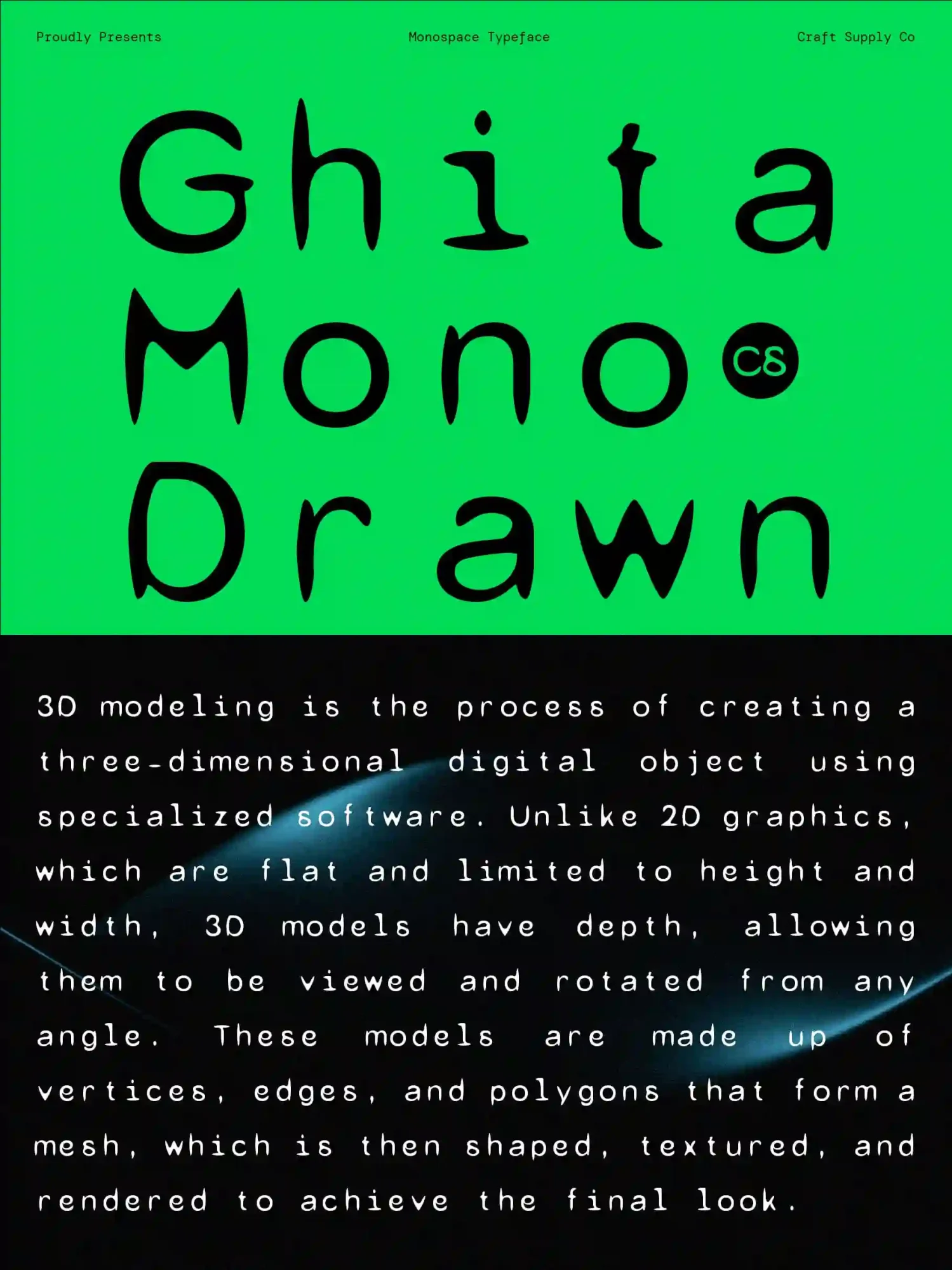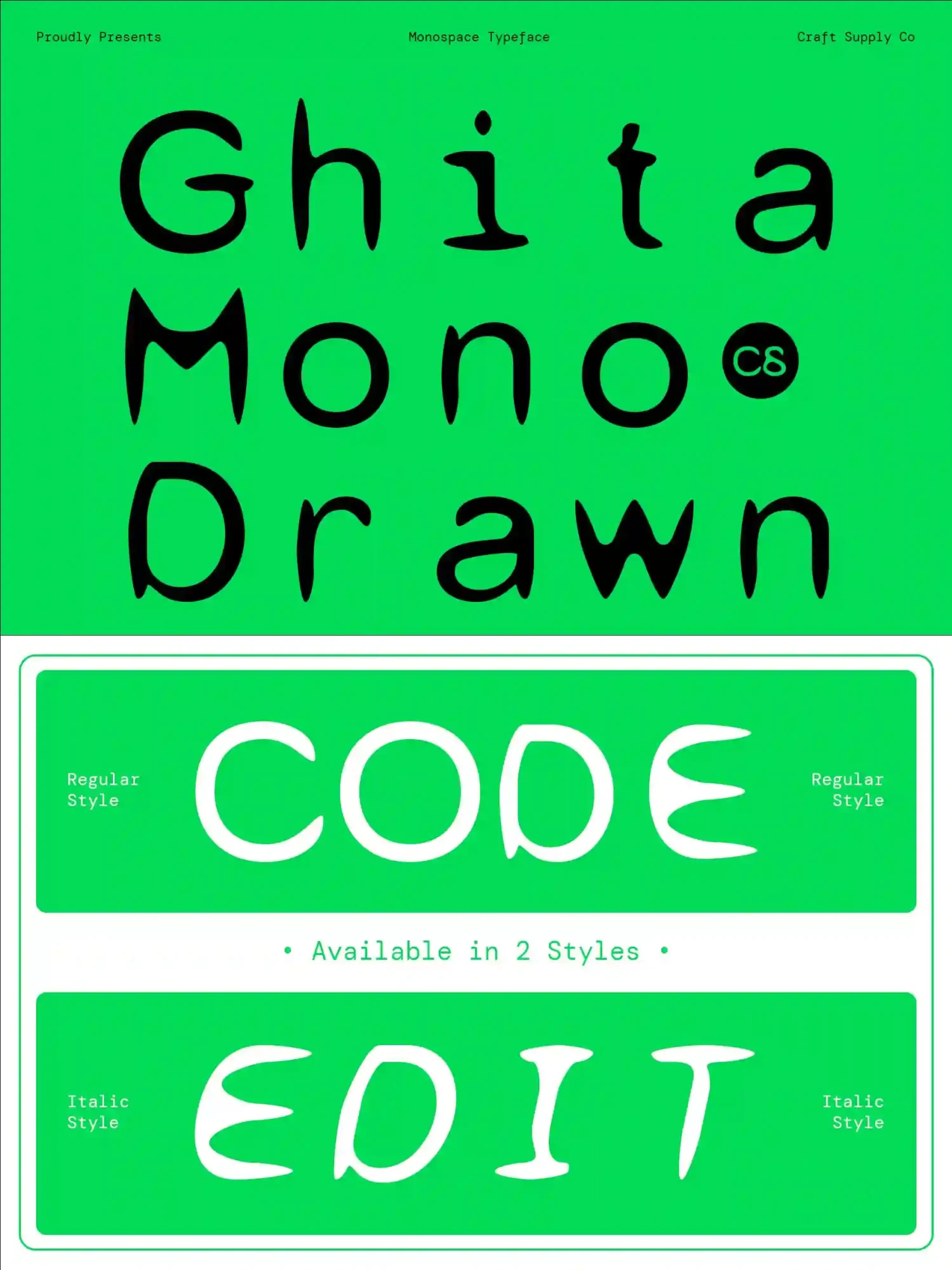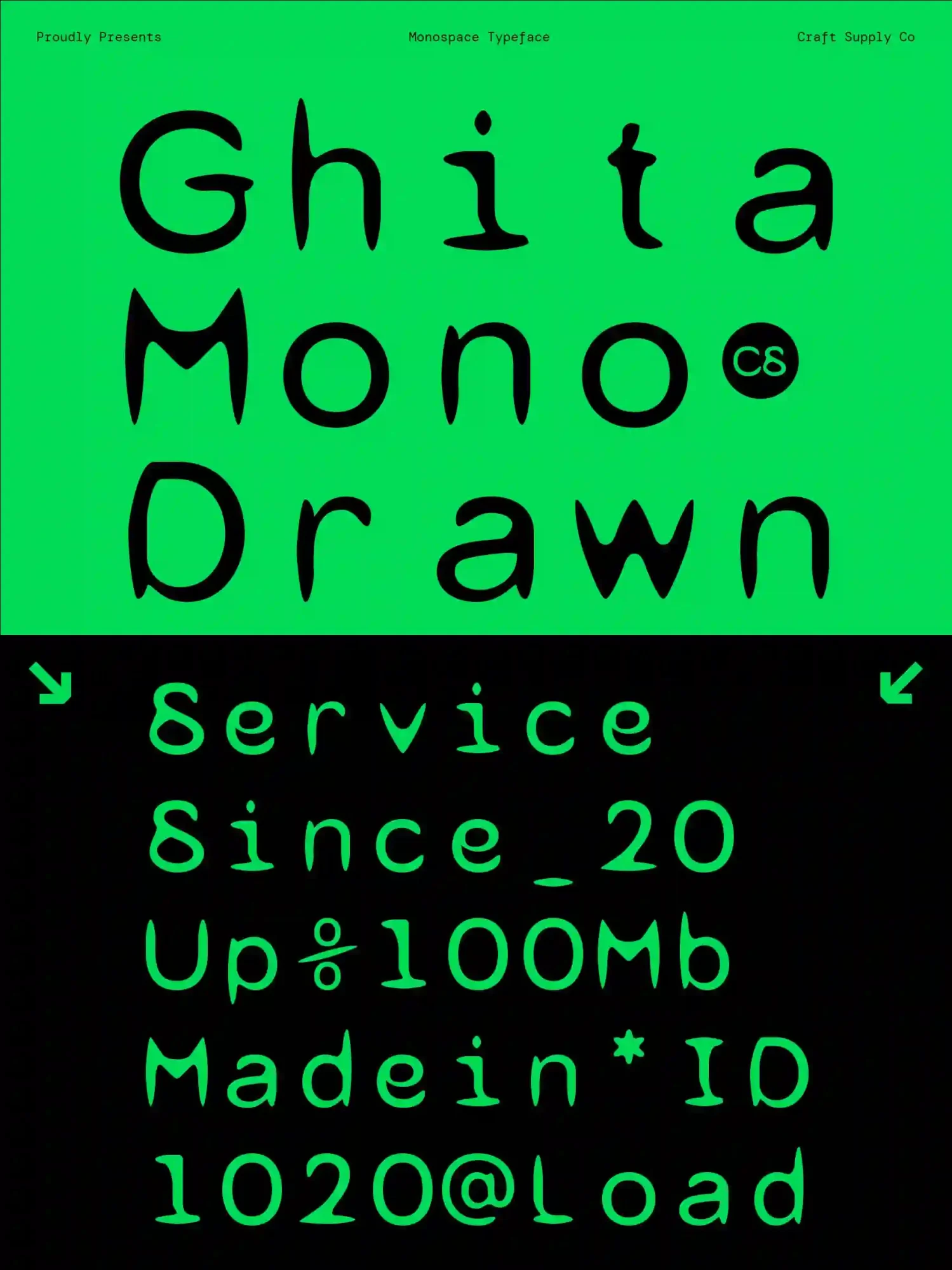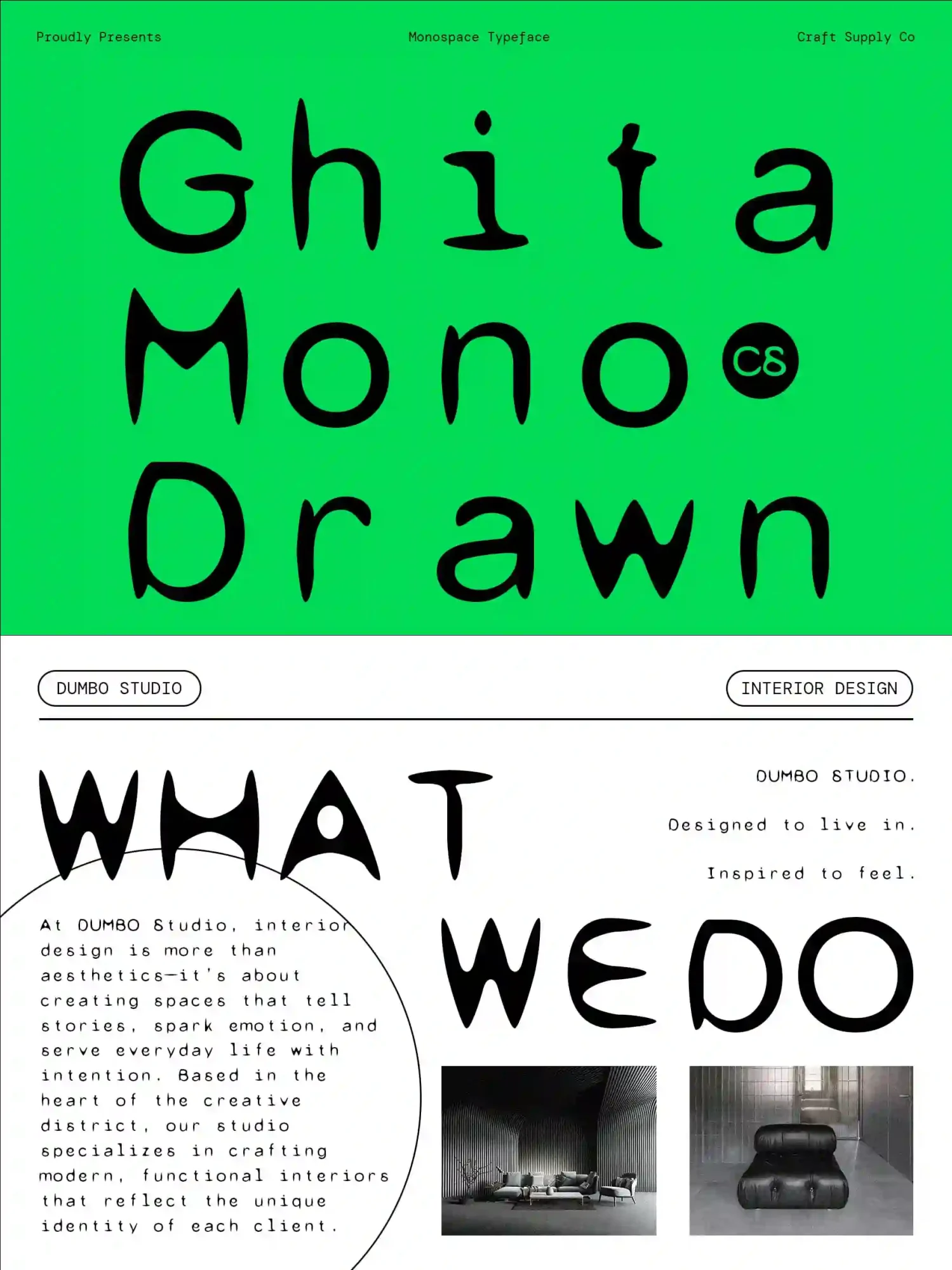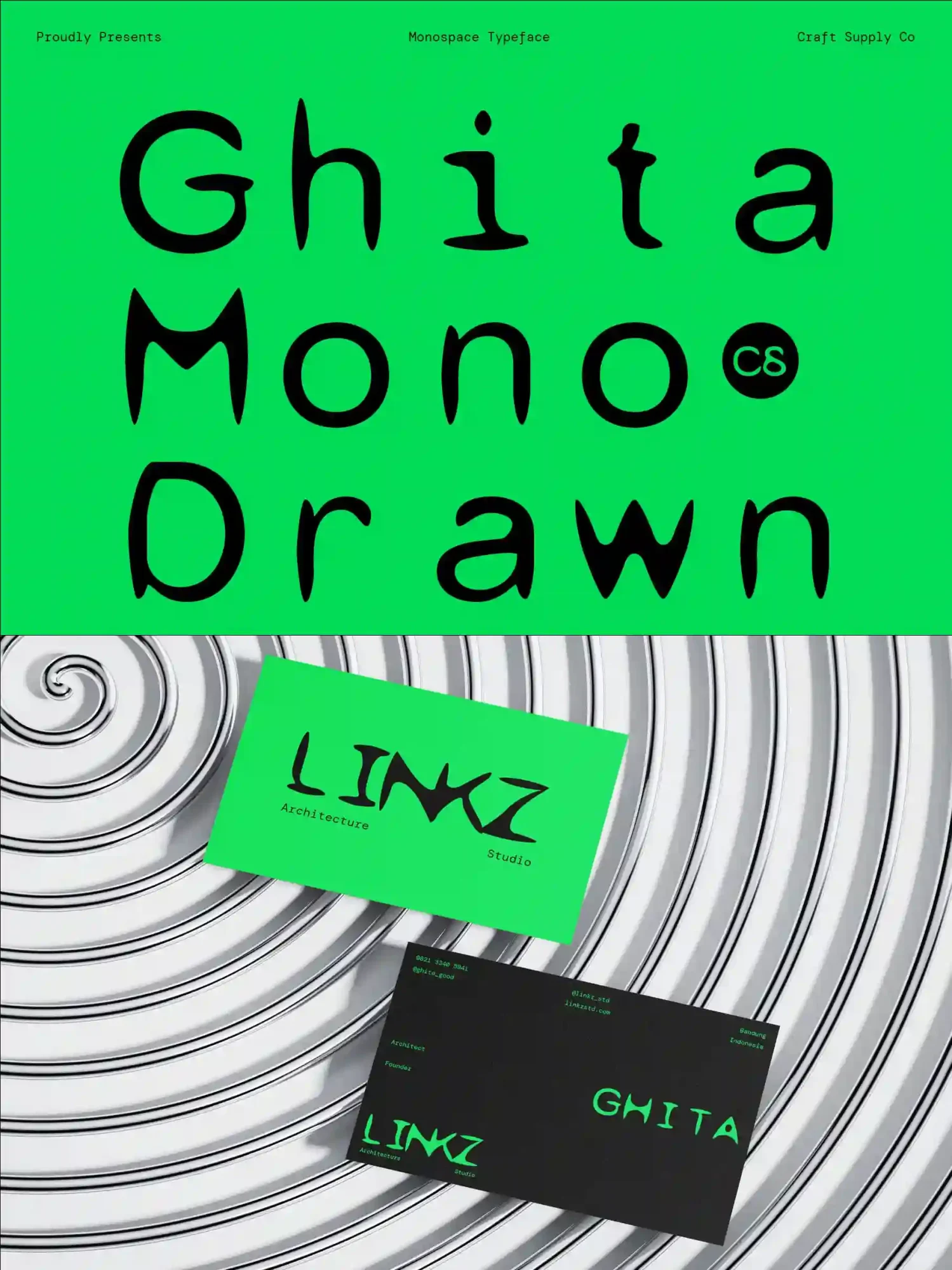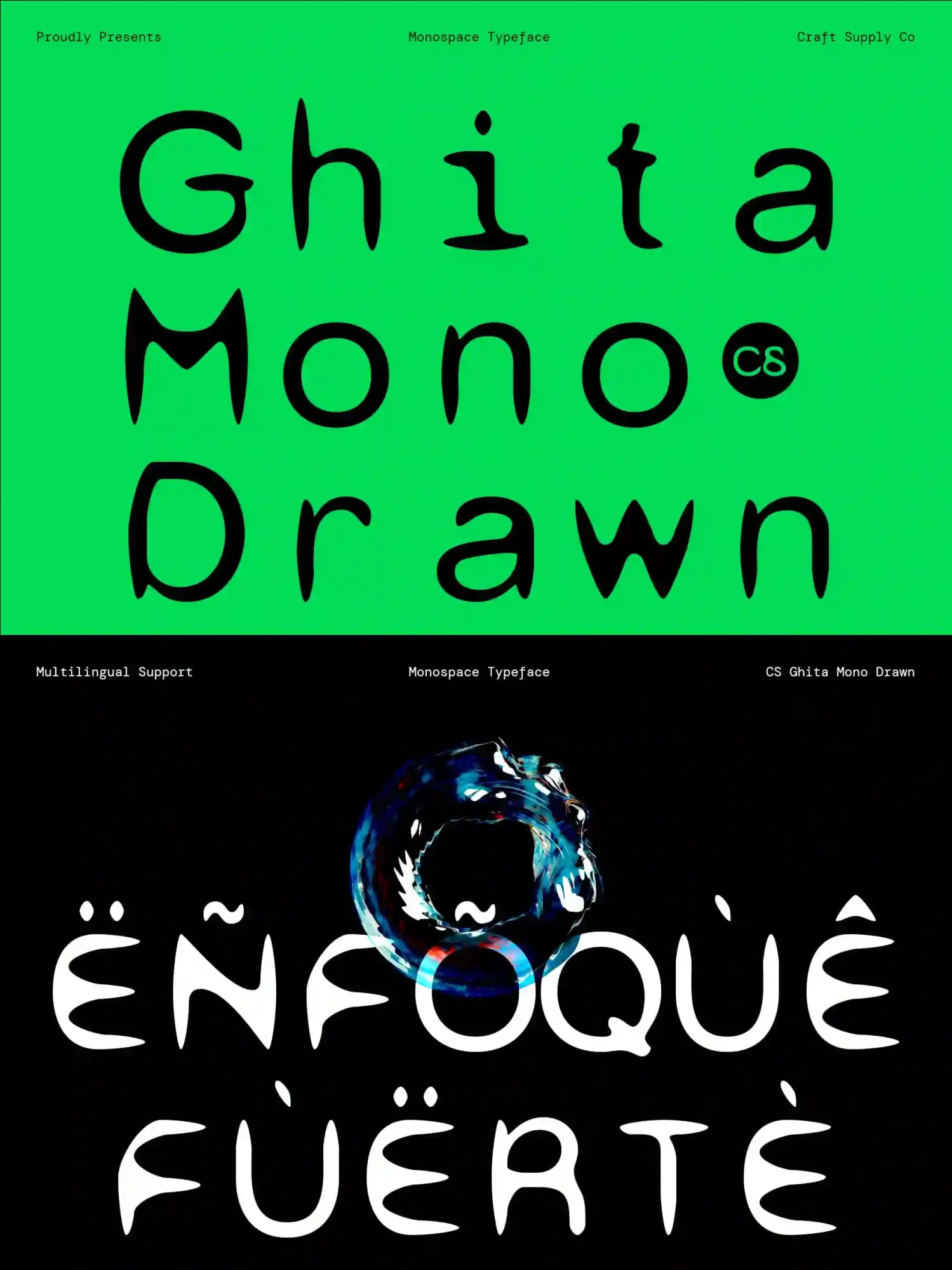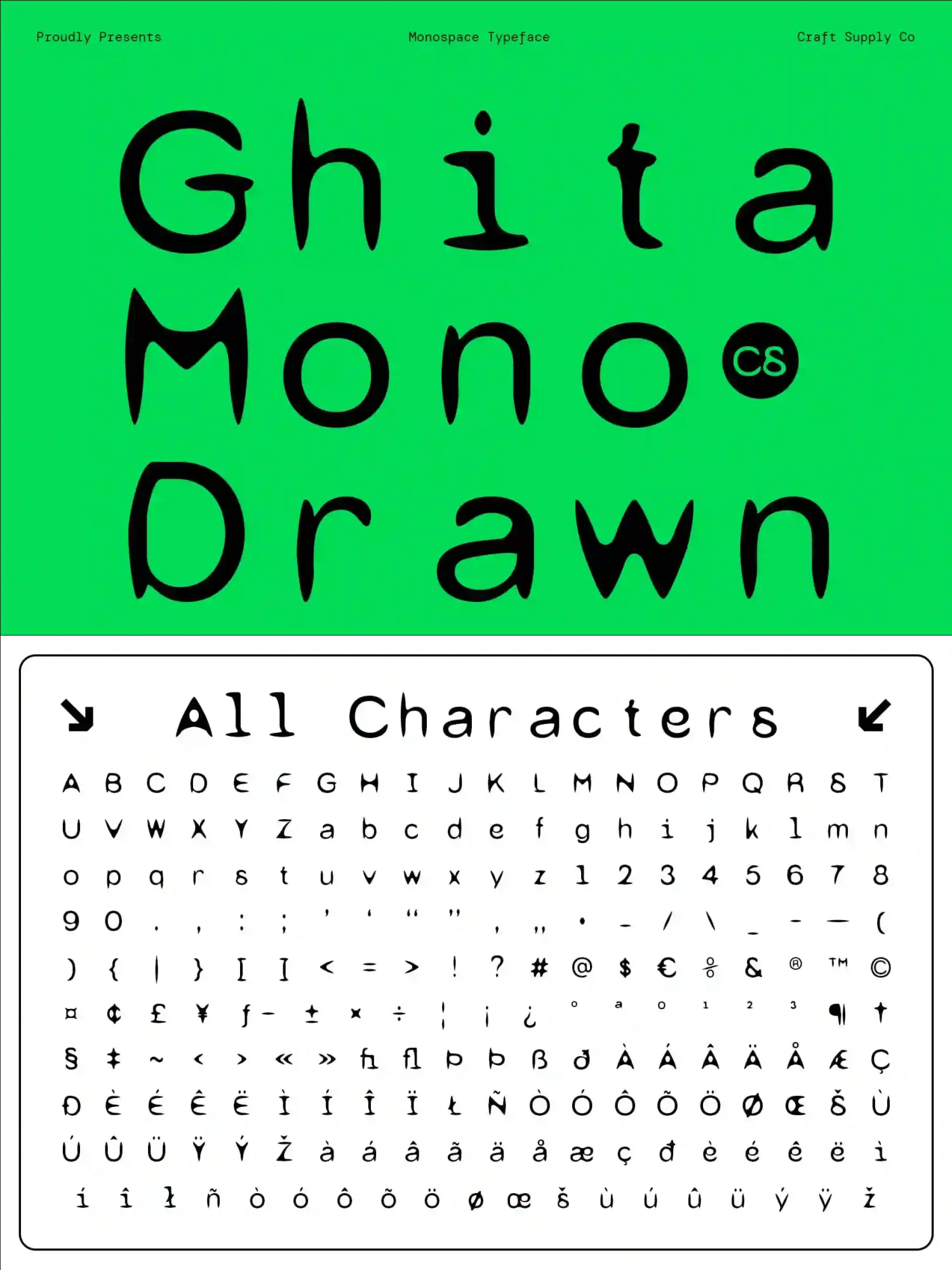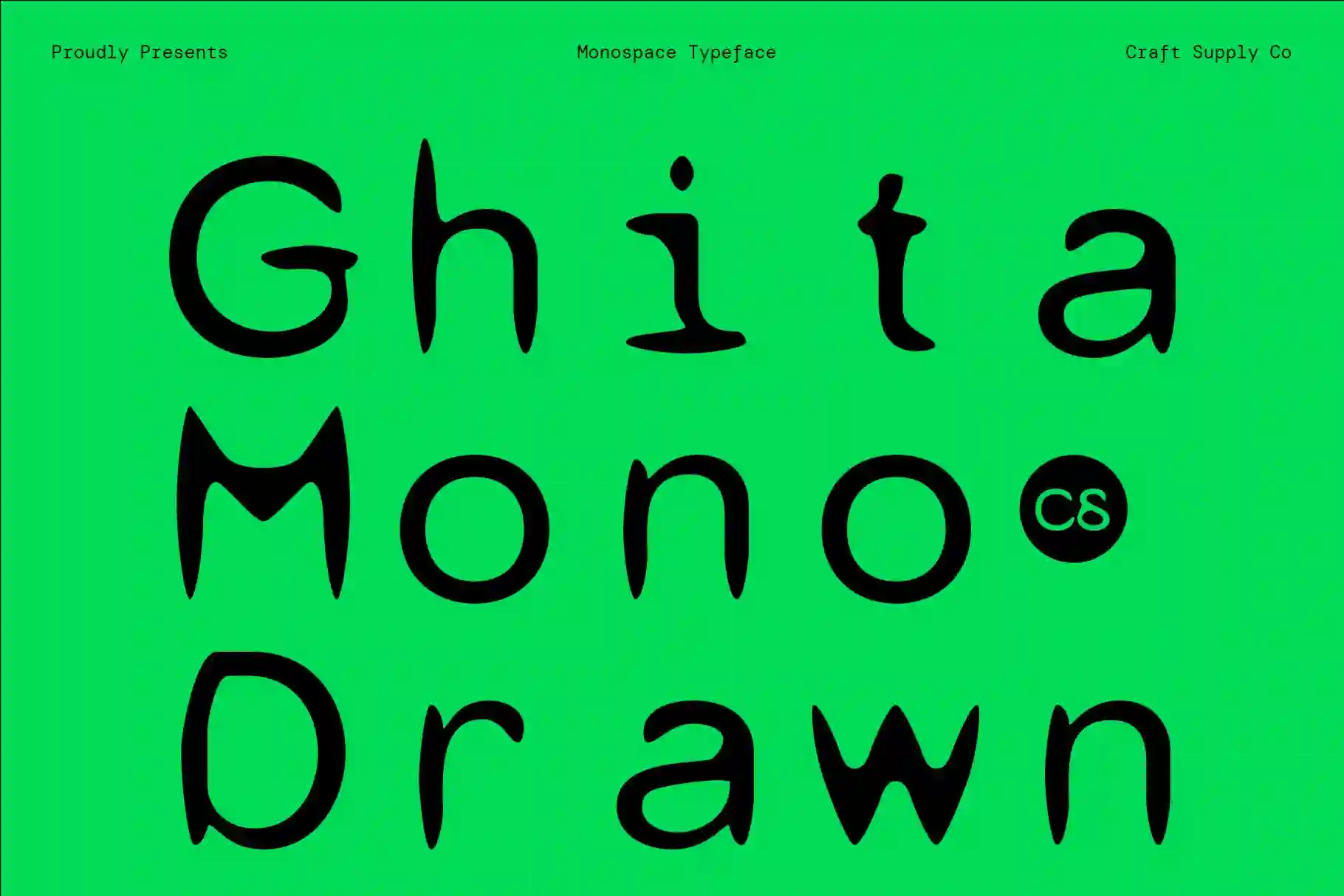
CS Ghita Mono Drawn – Modern Monospaced Font with Handcrafted Warmth
Precision Meets Personality
This is a modern sans-serif font that features a clean, contemporary monospaced structure, bringing a balance between technical clarity and creative warmth. The addition of a drawn effect introduces a handcrafted, human touch—giving this structured font a distinctly artistic character.
Elegant Structure with Creative Versatility
Its monospaced rhythm gives it a balanced, grid-like appearance, ideal for creating a sense of order and consistency. Yet, the subtle irregularities of the drawn effect soften the rigid lines, making it feel more inviting and original. This unique fusion allows the font to feel both precise and approachable.